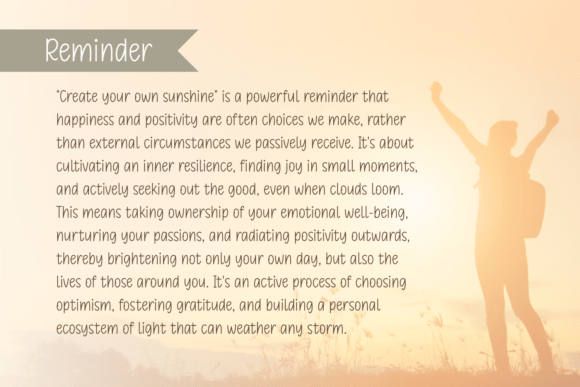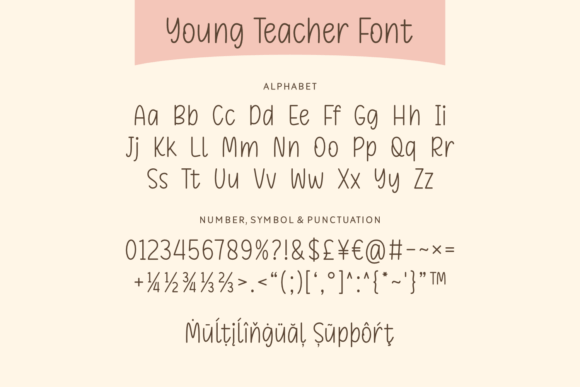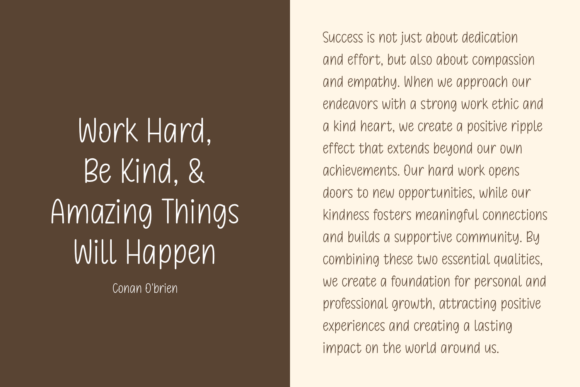
Young Teacher Font
The “Young Teacher” font is a charming and whimsical handwritten typeface. It exudes a playful and approachable vibe, reminiscent of a young teacher’s neat yet informal handwriting. The font features rounded edges and a slightly uneven baseline, giving it a natural, hand-drawn feel. The strokes have a consistent thickness, contributing to their legibility while maintaining their casual aesthetic.
The lowercase letters are particularly endearing, with their slightly quirky shapes and varying heights, suggesting a sense of youthful energy and enthusiasm.
Overall, it’s a font that radiates warmth and friendliness, making it suitable for designs that aim to convey a sense of comfort and personal touch. This font is a perfect choice for educational materials, greeting cards, and other projects that require a touch of youthful optimism.